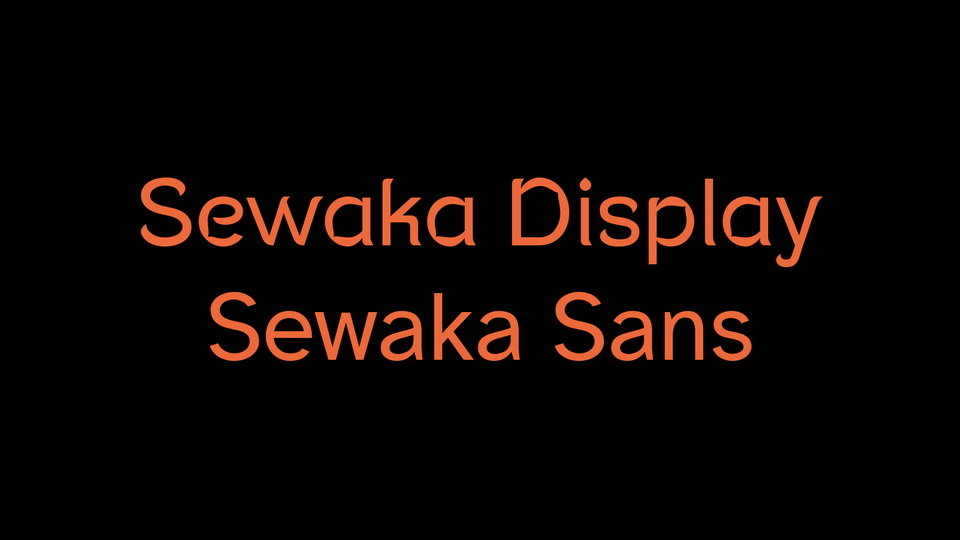
Download Sewaka font, a robust, contemporary but nonetheless an elegant typeface. Sewaka is a versatile typeface that suits to a wide spectrum of applications.
Designer: Kadek Buda